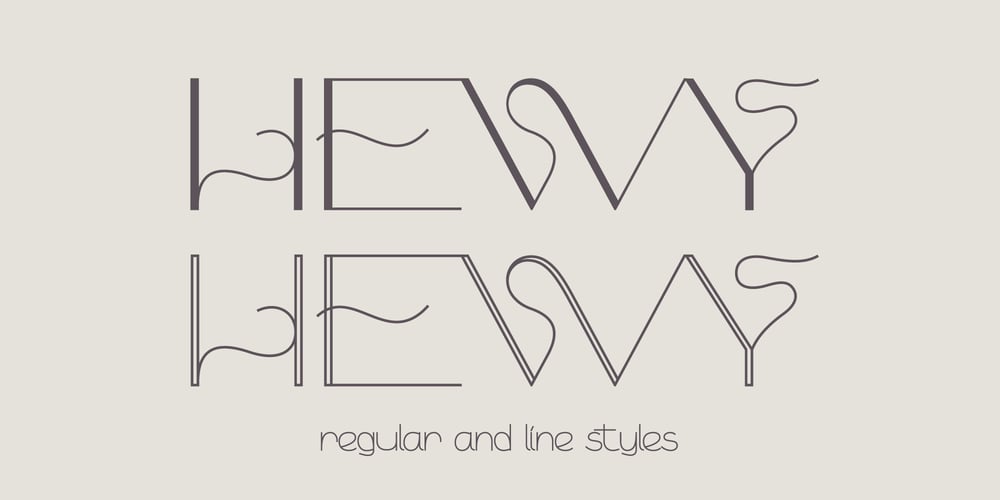
Hewy Font Family was designed by Roman Korolev and published by Kaer. Hewy contains 2 styles and family package options. HEWY is an elegant sans serif font family in Scandinavian design style. Simple line letters will add a touch of style to your projects.What you will get: Line and regular styles Uppercase and lowercase glyphs Numbers and symbols Multilingual support Ligatures Please feel free to request to add characters you need: kaer.pro@gmail.com